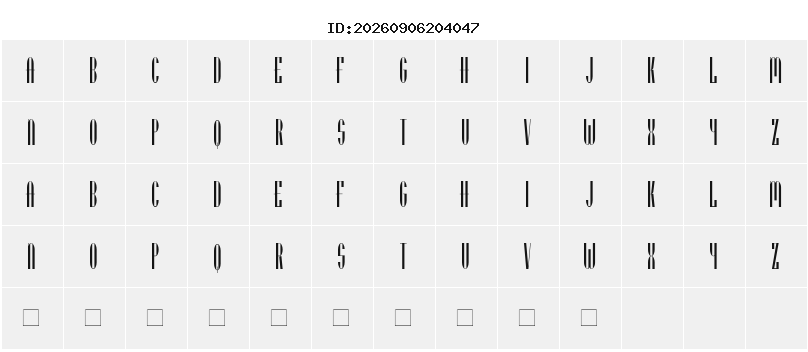
• Font Name: Utusi Star
• Designer: Peter Wiegel
Utusi Star.ttf is a modern, elegant sans-serif font designed for ultimate readability and visual harmony. Perfect for branding, headlines, web design, and print materials.